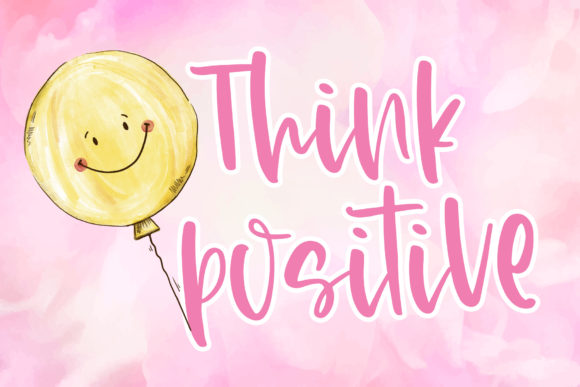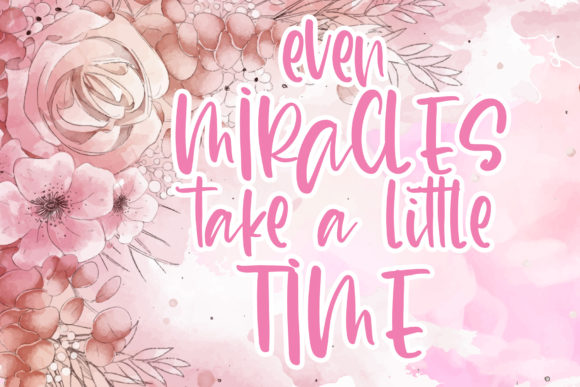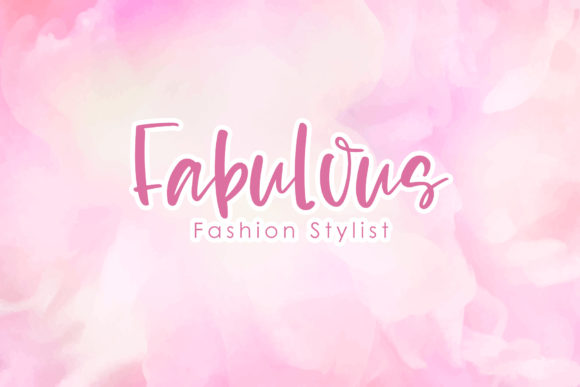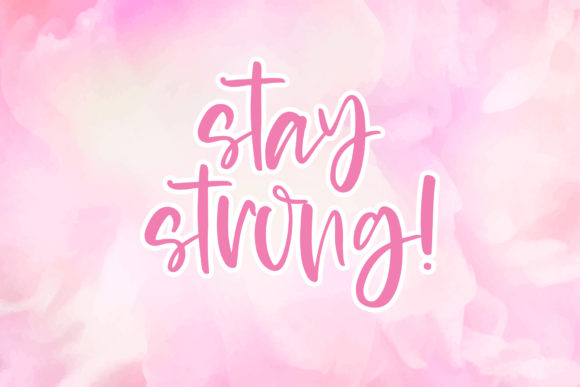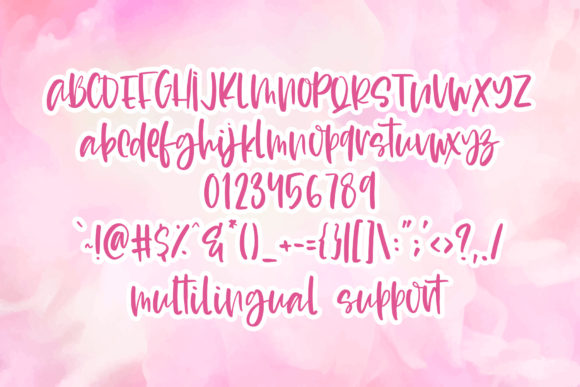
Introducing Blush Lovely Font: Elevate Your Designs with Elegance
Are you tired of using the same old fonts for your designs? Look no further! Blush Lovely Font is here to revolutionize the way you approach typography. This stunning handwritten font is designed to simplify elegance, making it perfect for designers and crafters alike. In this article, we’ll dive into the world of Blush Lovely Font and explore its features, benefits, and uses.
What is Blush Lovely Font?
Blush Lovely Font is a truly outstanding handwritten font that embodies the essence of elegance. With its unique and sophisticated design, this font is perfect for anyone looking to add a touch of luxury to their creative projects. Whether you’re a designer, crafter, or DIY enthusiast, Blush Lovely Font is sure to impress.
Key Features of Blush Lovely Font
- Handwritten Elegance: Blush Lovely Font boasts a beautiful, handwritten design that’s perfect for creating elegant and sophisticated text.
- Versatility: This font is ideal for a wide range of creative projects, from Instagram posts and social media graphics to calligraphy scripts and DIY projects.
- Easy to Use: Blush Lovely Font is incredibly easy to use, making it perfect for designers and crafters of all skill levels.
- High-Quality Design: This font is designed with high-quality and precision, ensuring that your text looks stunning and professional.
Benefits of Using Blush Lovely Font
So, why choose Blush Lovely Font for your designs? Here are just a few benefits of using this amazing font:
- Instant Elegance: With Blush Lovely Font, you can instantly add a touch of elegance to your designs, making them stand out from the crowd.
- Time-Saving: This font is designed to be easy to use, saving you time and effort when working on your creative projects.
- Endless Creative Possibilities: Blush Lovely Font is perfect for a wide range of creative projects, giving you endless possibilities for expression and design.
- Professional Results: With Blush Lovely Font, you can achieve professional-looking results without the need for extensive design experience.
Uses of Blush Lovely Font
So, what can you use Blush Lovely Font for? The possibilities are endless! Here are a few ideas to get you started:
- Instagram and Social Media Graphics: Use Blush Lovely Font to create stunning Instagram posts, social media graphics, and more.
- Calligraphy Scripts: This font is perfect for creating beautiful calligraphy scripts for DIY projects, such as wedding invitations, greeting cards, and more.
- DIY Projects: Blush Lovely Font is ideal for a wide range of DIY projects, from crafting and scrapbooking to paper crafting and more.
- Branding and Marketing Materials: Use this font to create professional-looking branding and marketing materials, such as logos, brochures, and business cards.
In conclusion, Blush Lovely Font is a truly outstanding handwritten font that’s perfect for designers and crafters alike. With its elegant design, versatility, and ease of use, this font is sure to elevate your creative projects to the next level. Whether you’re looking for fonts for Instagram or calligraphy scripts for DIY projects, Blush Lovely Font is the perfect choice. So why wait? Download Blush Lovely Font today and start creating stunning designs that exude elegance and sophistication!